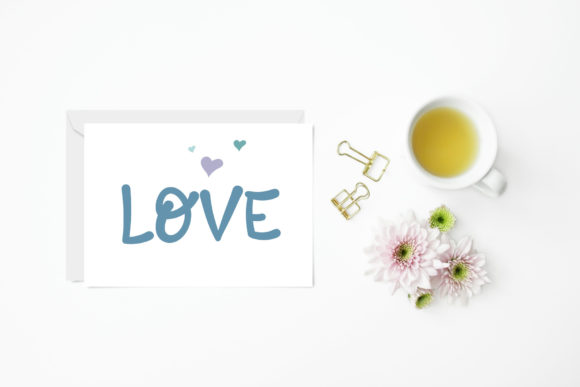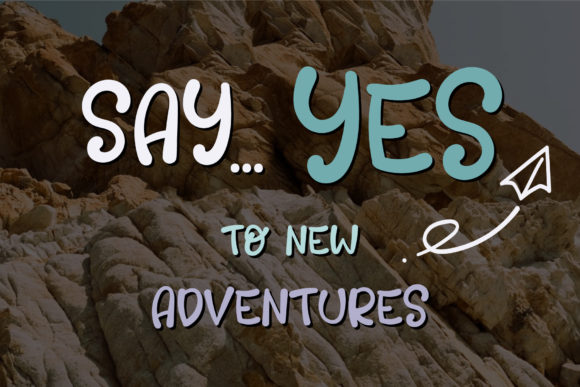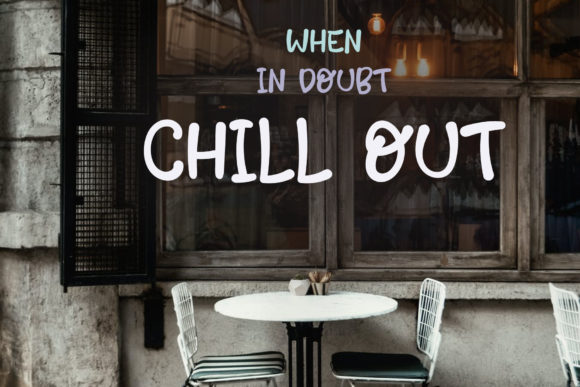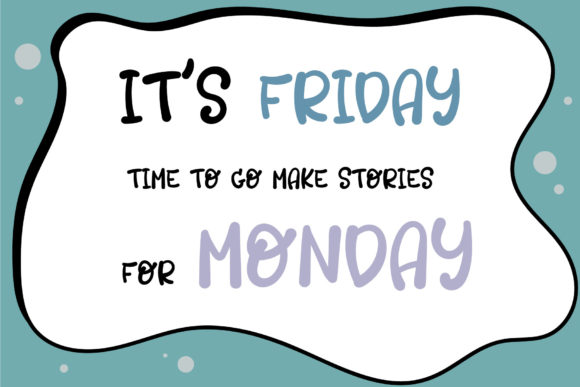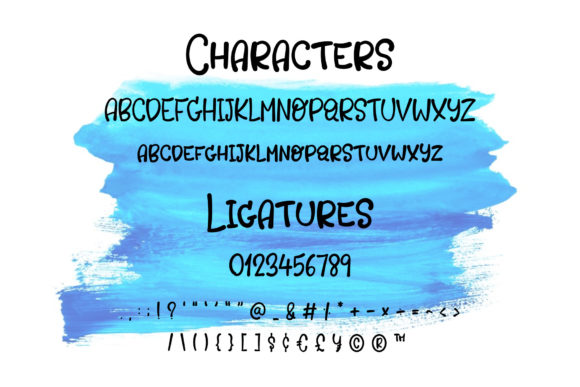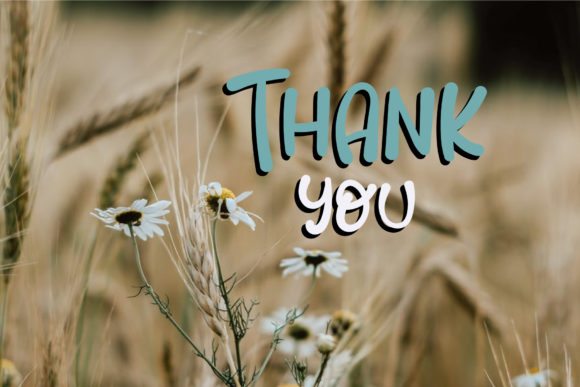
Discover the Charm of Amelia Font: Elevate Your Designs with a Whimsical Script Font
In the world of typography, fonts play a crucial role in conveying the tone and personality of a design. For designers and crafters looking to add a touch of whimsy and friendliness to their creations, Amelia Font is an excellent choice. This relaxed script font is designed to bring a sense of approachability and warmth to any project, making it an incredible asset to your font library.
The Characteristics of Amelia Font
Amelia Font is a script font that boasts a unique blend of elegance and playfulness. Its friendly style makes it perfect for a wide range of applications, from creative branding and advertising to packaging and digital media. The font’s relaxed theme gives it a laid-back, effortless feel that is sure to capture the attention of your audience.
One of the standout features of Amelia Font is its versatility. Whether you’re working on a serious project or something more lighthearted, this font can adapt to any topic or theme. Its whimsical nature allows it to add a touch of personality to your designs, making them more engaging and memorable.
The Benefits of Using Amelia Font
So, why should you consider adding Amelia Font to your collection? Here are just a few benefits of using this charming script font:
- Elevate Your Designs: Amelia Font has the potential to take your designs to the next level. Its unique style and friendly tone can add a touch of sophistication and whimsy to any project.
- Versatility: This font is incredibly versatile, making it suitable for a wide range of applications, from digital media to print materials.
- Easy to Read: Despite its whimsical nature, Amelia Font is easy to read, making it perfect for body text and headlines.
- Unique Personality: Amelia Font has a distinct personality that can help your designs stand out from the crowd.
Using Amelia Font in Your Designs
So, how can you use Amelia Font in your designs? Here are a few ideas to get you started:
- Branding and Advertising: Use Amelia Font to create eye-catching logos, advertisements, and marketing materials that showcase your brand’s personality.
- Digital Media: Add a touch of whimsy to your website, social media graphics, and email newsletters with Amelia Font.
- Packaging: Use Amelia Font to create unique and memorable packaging designs that stand out on store shelves.
- Crafting and DIY Projects: Amelia Font is perfect for crafters and DIY enthusiasts looking to add a personal touch to their projects, such as handmade cards, invitations, and scrapbooking.
Tips for Pairing Amelia Font with Other Fonts
When pairing Amelia Font with other fonts, it’s essential to choose fonts that complement its whimsical nature. Here are a few tips to keep in mind:
- Pair with Sans-Serif Fonts: Pair Amelia Font with sans-serif fonts, such as Arial or Helvetica, to create a nice contrast between the script font and a clean, modern font.
- Use Serif Fonts for Contrast: Use serif fonts, such as Times New Roman or Georgia, to create a striking contrast with Amelia Font.
- Experiment with Script Fonts: Don’t be afraid to pair Amelia Font with other script fonts to create a unique and playful look.
Amelia Font is a whimsical script font that can add a touch of personality and friendliness to any design. Its versatility, unique style, and easy readability make it an excellent choice for designers and crafters looking to elevate their creations. Whether you’re working on a branding project, digital media, or a crafting project, Amelia Font is sure to be an incredible asset to your font library.
So, why not give Amelia Font a try? With its relaxed theme and friendly style, it’s sure to bring a smile to your audience’s face and make your designs stand out from the crowd.